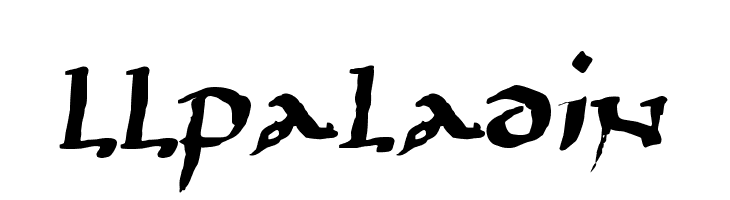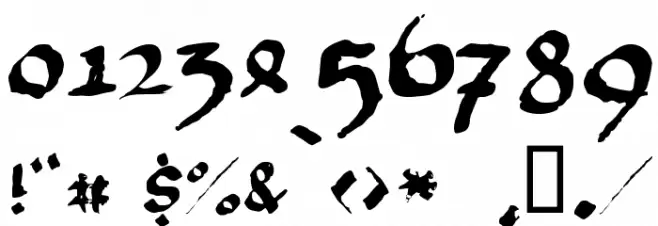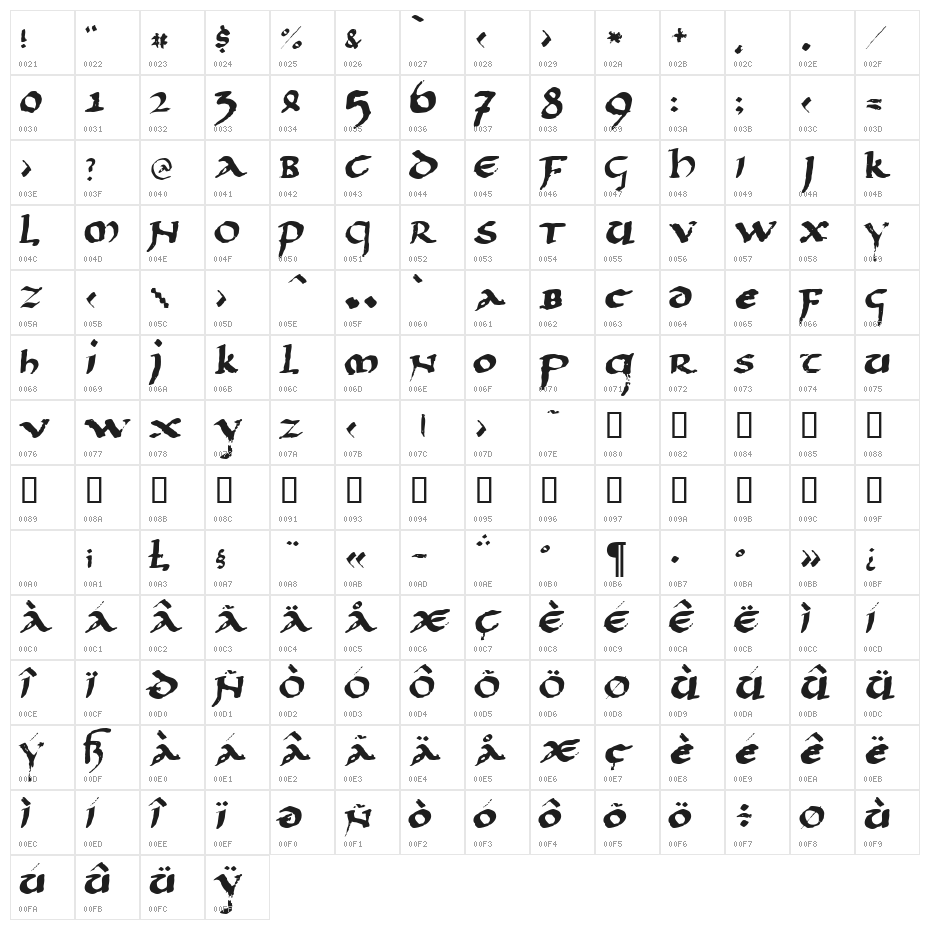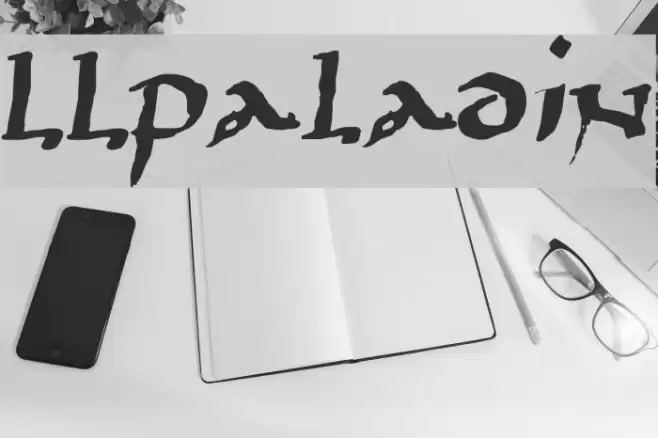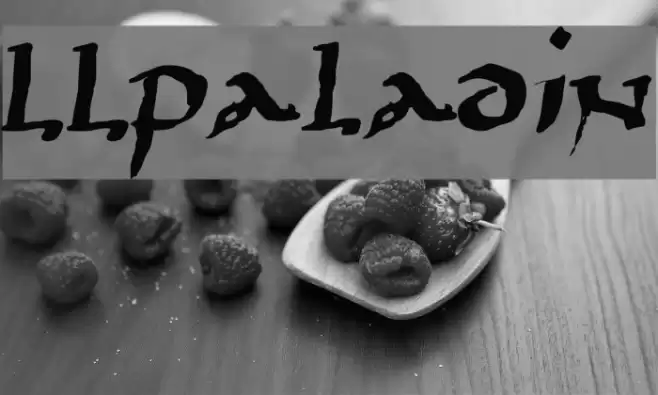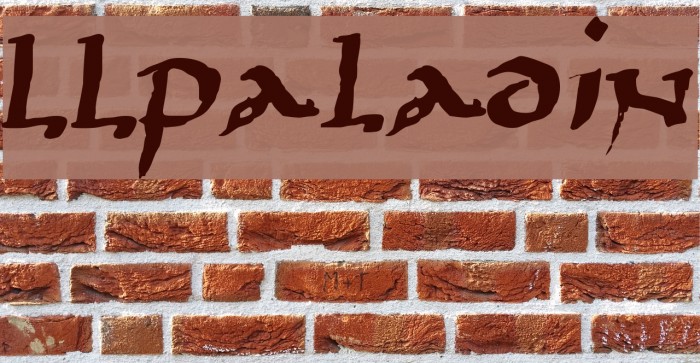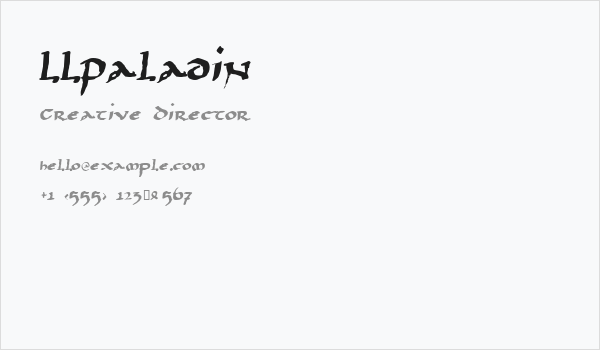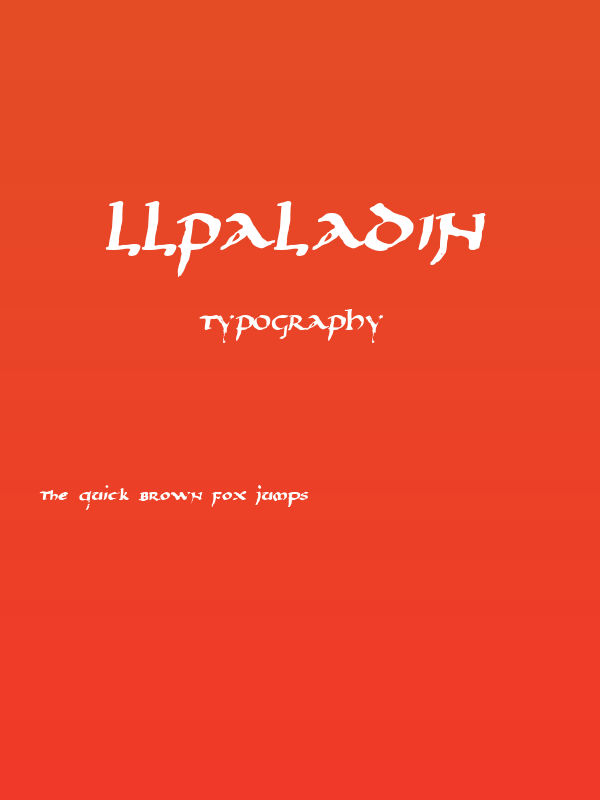
LLPaladin Font
LLPaladin Description
This font exudes a medieval and gothic aesthetic, characterized by its sharp, angular strokes and dramatic flair. The uppercase letters are bold and commanding, with a distinct calligraphic influence that suggests a sense of history and tradition. Lowercase letters maintain this theme, offering a consistent and cohesive look. Numbers and special characters are equally stylized, ensuring a uniform appearance across all text. The font's intricate design is perfect for projects that require a touch of elegance and antiquity, such as fantasy-themed designs or historical documents.
| Proposed Projects | Ideal for fantasy book covers, historical event posters, or themed invitations. |